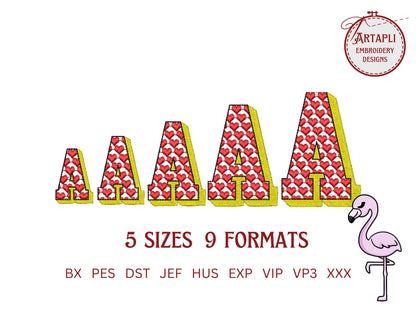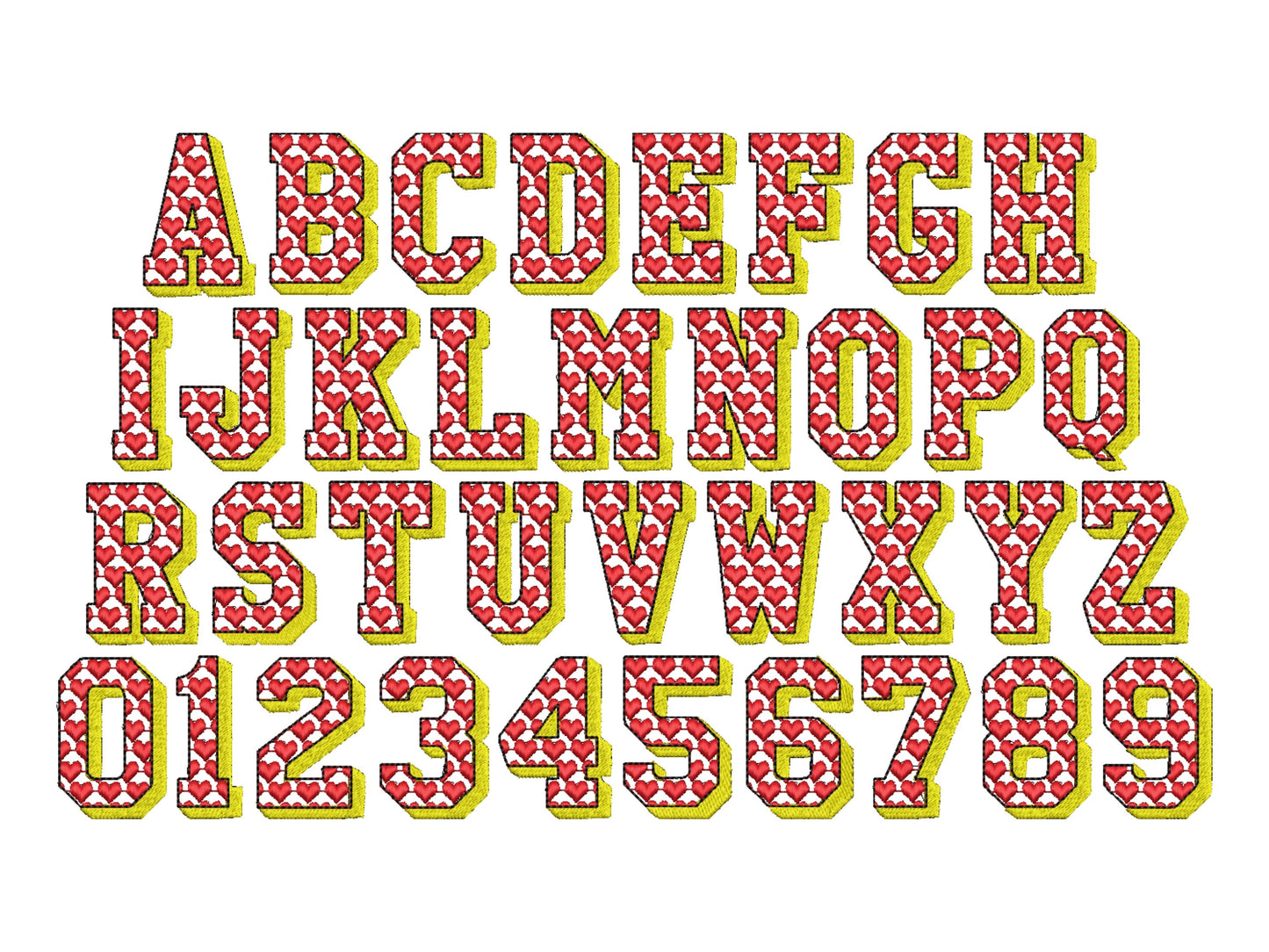
Heart Patterned Shadow Block Font
Uppercase letters A to Z and numbers 0 to 9 in five sizes: 1.6, 2, 2.5, 3 and 3.4 inches. Each letter has a see-through heart pattern inside, a fill stitch shadow and a light bean stitch outline.
- Heart patterned shadow block font
- Uppercase A-Z and numbers 0-9
- 5 sizes, 1.6 to 3.4 in